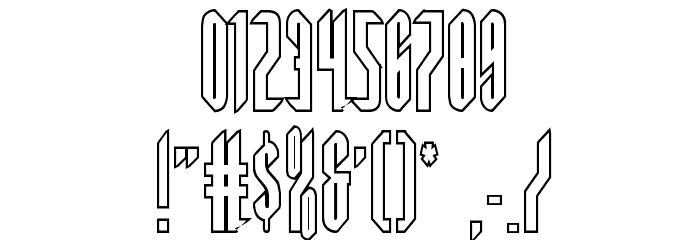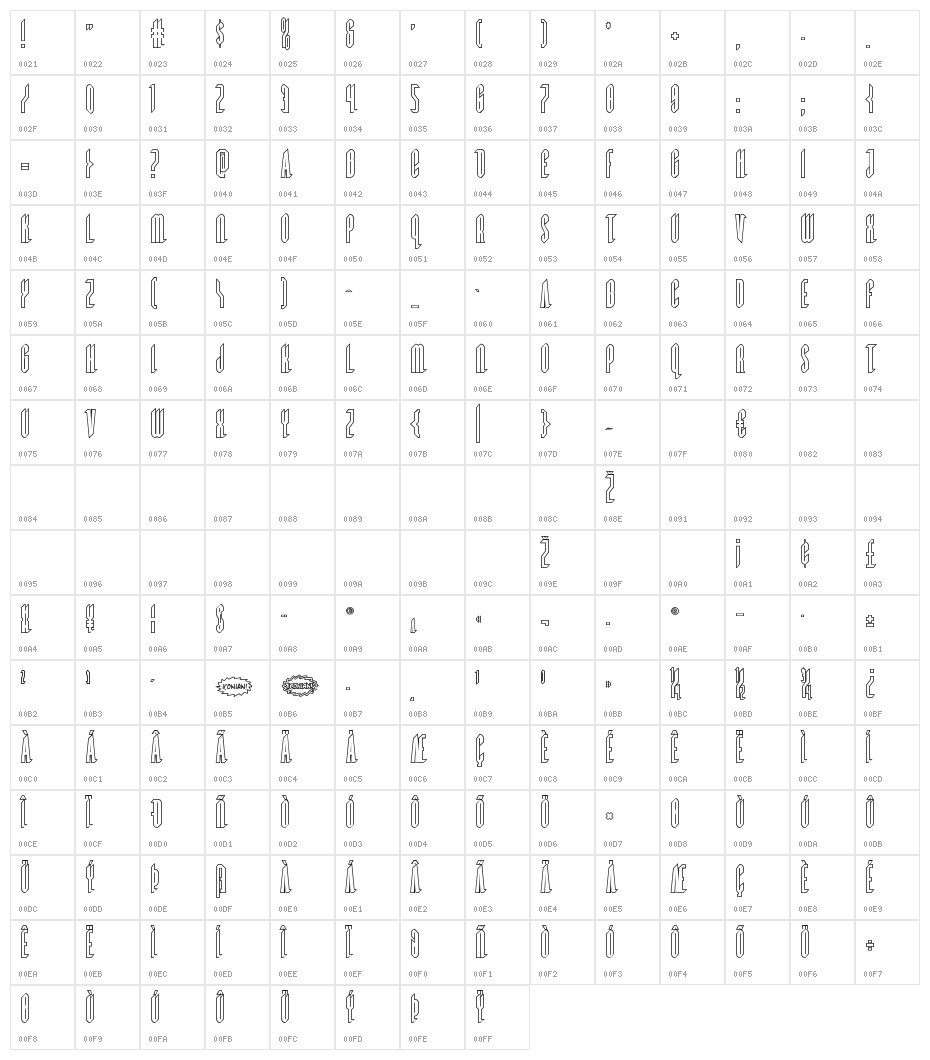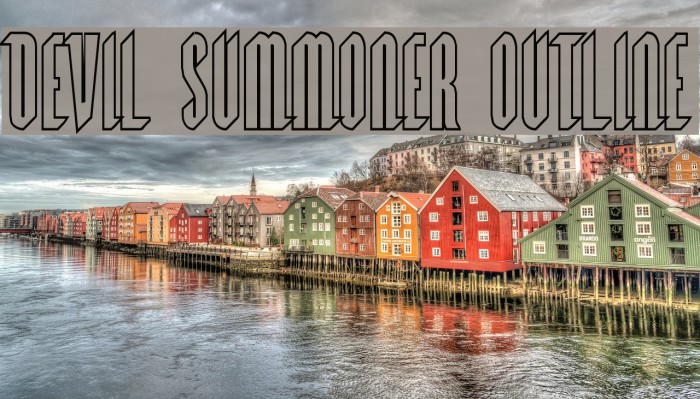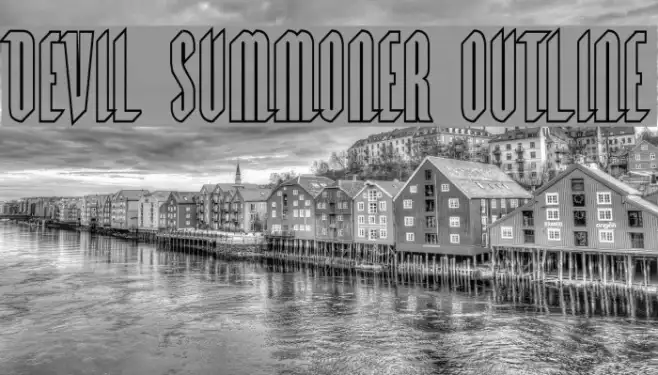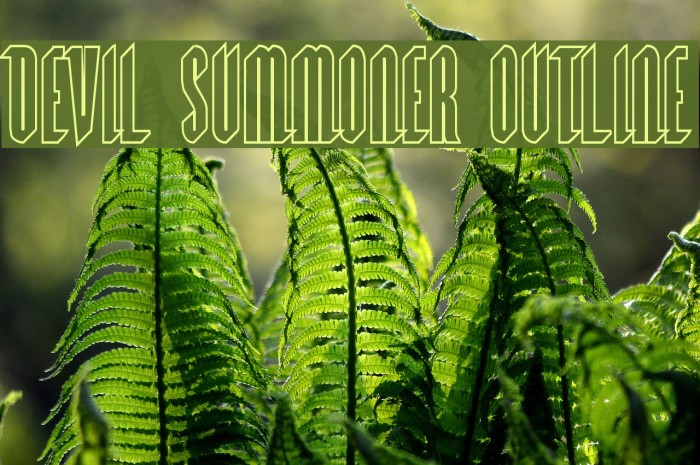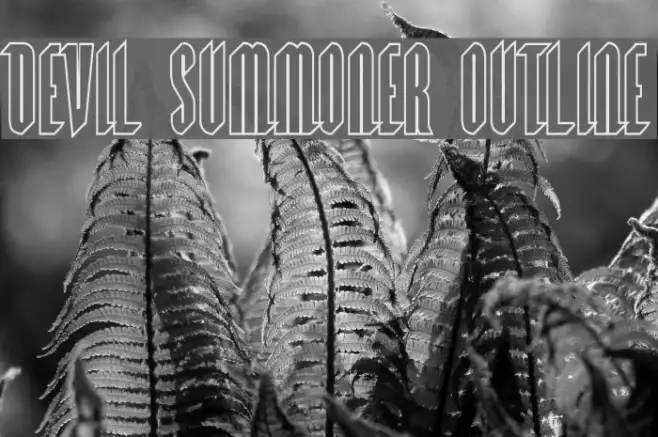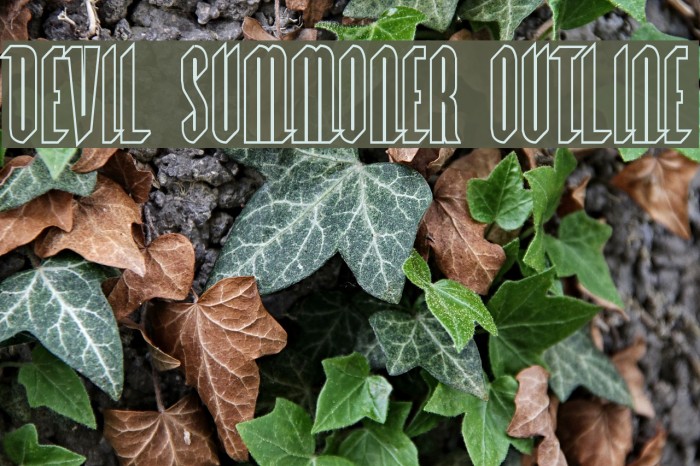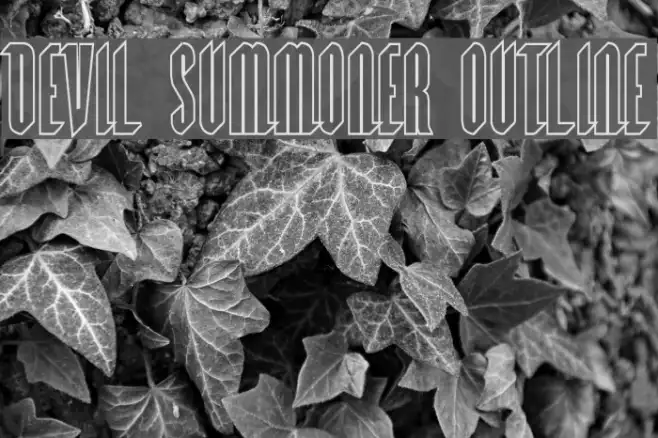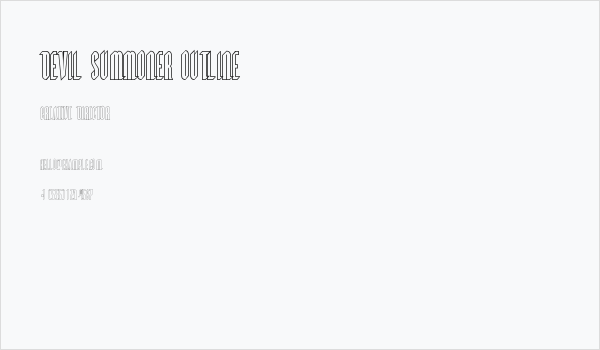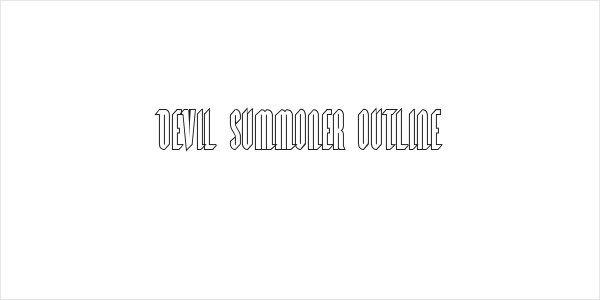
Devil Summoner Outline Font
Devil Summoner Outline Description
This font features a bold, outlined style with sharp, angular edges and a distinct geometric form. The uppercase letters are tall and narrow, giving a sense of height and drama. The lowercase letters maintain the same angular aesthetic, creating a cohesive look across the alphabet. Numbers and special characters follow the same design principles, ensuring consistency throughout. The font's outline nature adds a unique dimension, making it stand out in any design. Its structured form and high contrast between the strokes and the background make it ideal for attention-grabbing headlines or titles.
| Proposed Projects | Ideal for video game titles, movie posters, or any project requiring a dramatic and eye-catching font. |